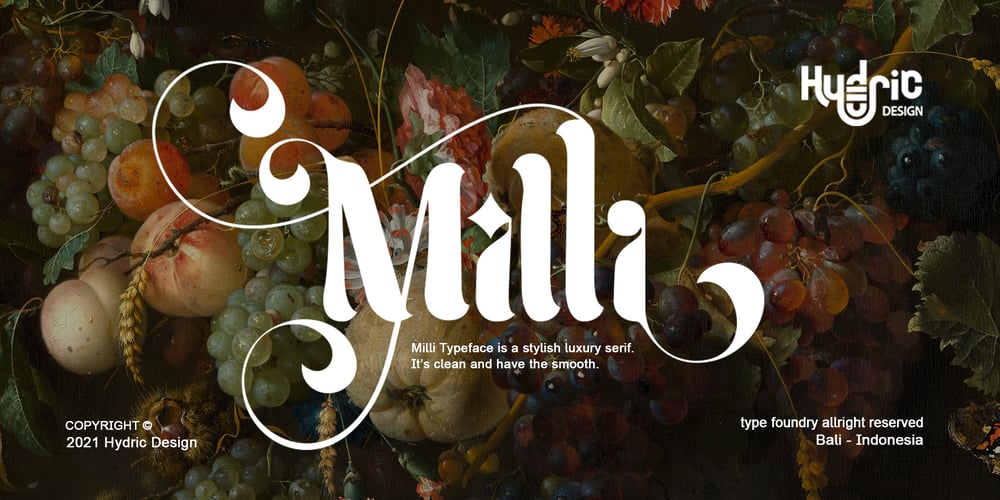
Milli Font Family was designed by Hery Setyadarmawan and published by Hydric Design. Milli contains 1 styles and family package options. Milli Typeface is a stylish luxury serif. It’s clean and have the smooth, also playful and versatile serif family with 40+ ligatures and 100+ alternates that you can combine to get curves and beautiful shapes just in seconds.type the words, This font is suitable for use in many design forms, for example magazines, postcards, logos, DIY Projects, invitation card, quotes, vintage look design, old classic ,60s, 70s, 80s era, wedding projects and much more. We recommend using Adobe Illustrator or Photoshop.INCLUDED : The perfect font choice for – book, Brand , label & Logo project watermarks, craft product, logos, business cards, quotes, or gift card. Milli is a PUA encoded font (Private Use Areas – font specific code)- sothat all the alternative characters, can be easily accessed in full through any program by using your OperatingSystem’s utilities (CharacterMap for Windows and Font Book for Mac.), as well asIllustrator, Photoshop CC 2017, Cricut Design Space and SilhouetteStudio andseveral other applications.Multilingual Support :To access all OpenType Stylistic alternates, you need a program thatsupports OpenType features such as Adobe Illustrator, Adobe Photoshop. Corel draw & ms wordThank You, and have a nice day!